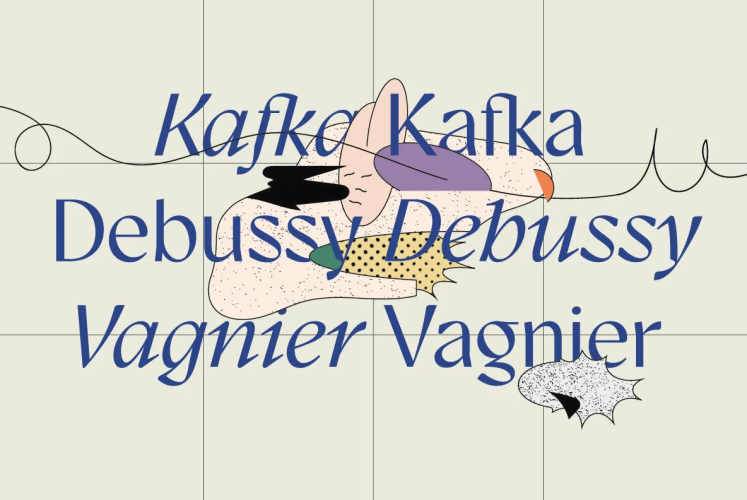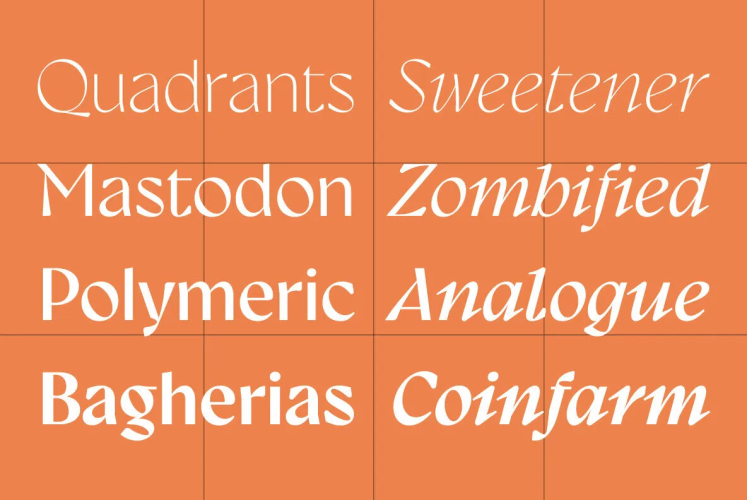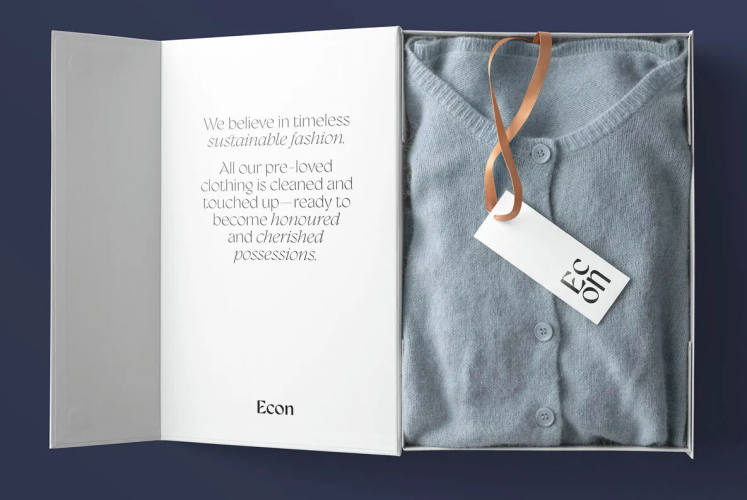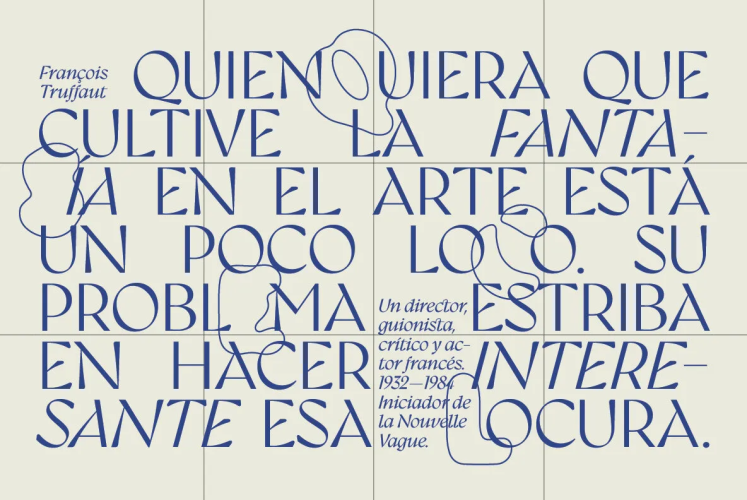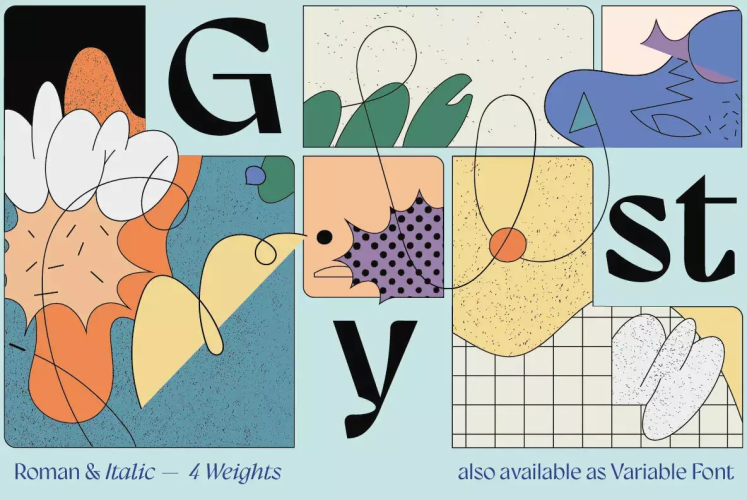
Gyst Font Family
Gyst is a neo-humanist Sans Serif typeface that artfully blends the principles of Grotesque and Antiqua. With its classic uprights and the serifs in its true italics, Gy…
Gyst is a neo-humanist Sans Serif typeface that artfully blends the principles of Grotesque and Antiqua. With its classic uprights and the serifs in its true italics, Gyst spans the arc from a modern humanistic sans serif to a captivating cursive serif. Contrasting strokes and luscious, on the other hand, razor-edged terminals reflect a sense of grace, thriving at the intersection of geometric precision and flourishing eccentricity. Made for body text as well as display use. In any situation, you will find the autonomous cursive posture to be a perfect playmate for the upright. Gyst comes in four upright and italic static weights, all equipped with a whole lot of Alternates and Ligatures.
Where Gyst Font Family works best
Gyst Font Family is built for size: event posters, hero headlines and billboard-style layouts.
High contrast display type like Gyst Font Family reads instantly in thumbnails and motion graphics.
What is Gyst Font Family good for?